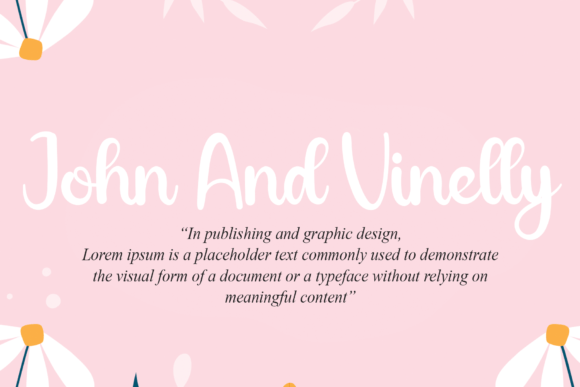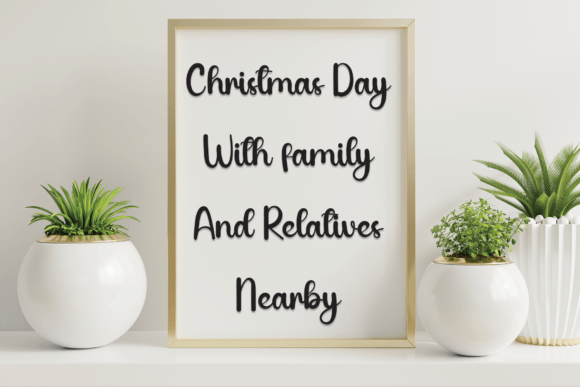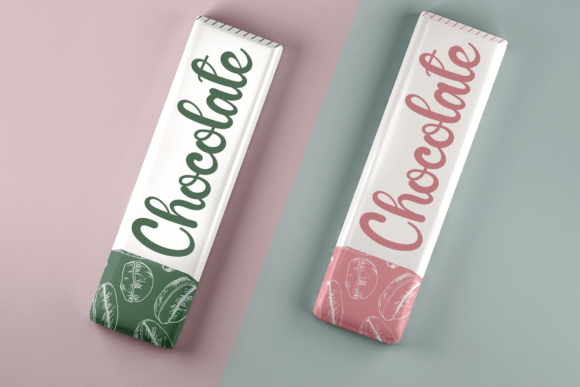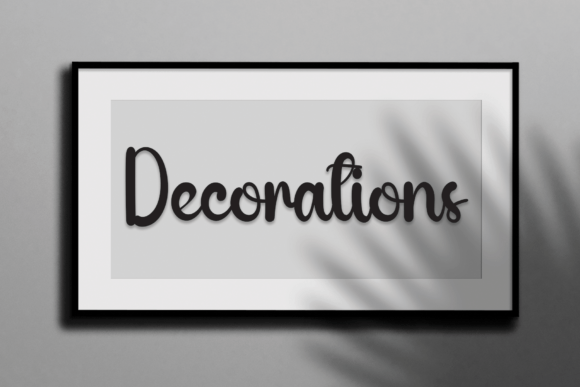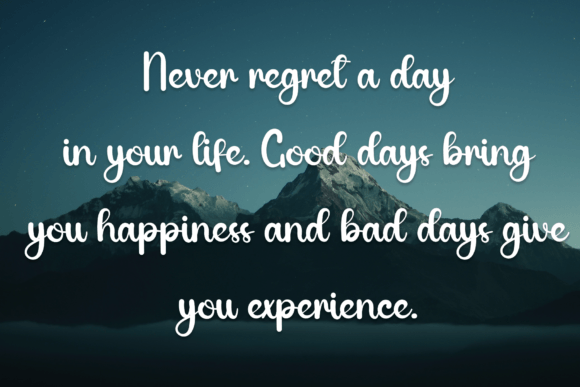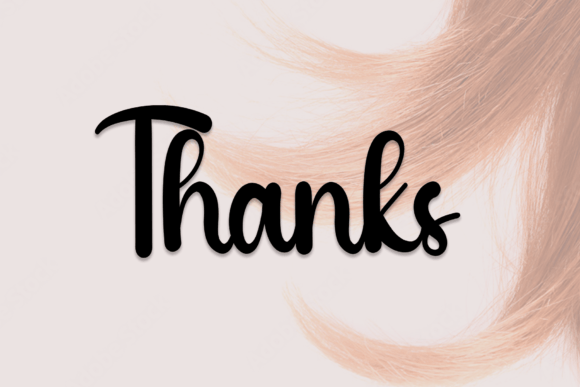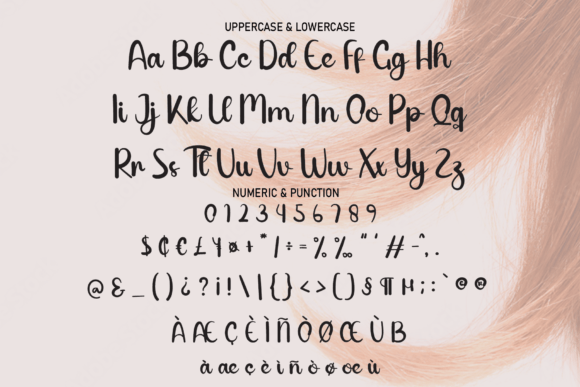
Single Line Font
About Single Line Font
Single Line Font captures a charming and elegant handwritten style that enhances a wide variety of creative projects. Its delicate strokes and graceful design make it a beautiful choice for anyone seeking to add a personal, handcrafted touch to their work.
Perfect for Wedding Invitations and Cards
The graceful style of Single Line Font makes it an ideal pick for wedding invitations, thank you cards, and greeting cards. Its subtle elegance complements the romantic and heartfelt tone these occasions demand, helping your designs feel more special and memorable.
Great for Quotes and Logos
Whether you’re designing inspiring quotes or unique logos, Single LineFont brings a warm and inviting personality. Its smooth and clean handwriting style ensures that your messages stand out beautifully without overpowering other design elements.
Suitable for Business Cards and Branding
Single LineFont adds a refined and personal touch to business cards and branding materials. It works well for businesses and creatives who want to project an approachable yet professional image, making every detail count.
Versatility Across Designs
Beyond invitations and branding, Single LineFont fits perfectly into various other projects that require a handwritten look. Whether for event signage, personalized gifts, or social media posts, this font enhances your designs with charm and elegance.
Why Choose Single LineFont?
Single LineFont stands out because of its balance between charm and sophistication. It offers a versatile, handcrafted feel while maintaining clarity and style, making it a valuable addition to any designer’s font collection.